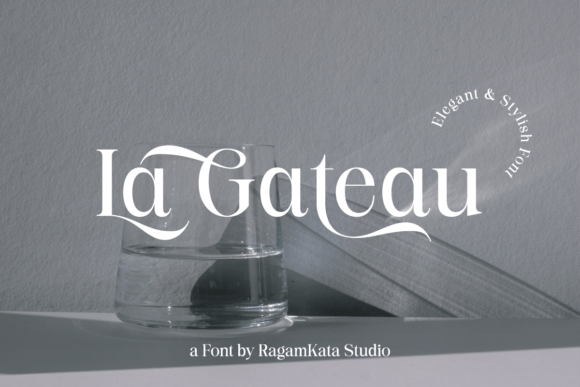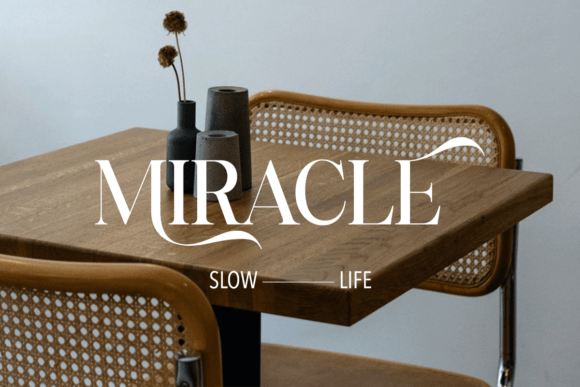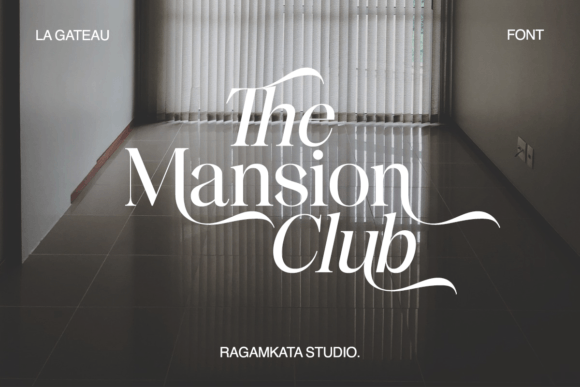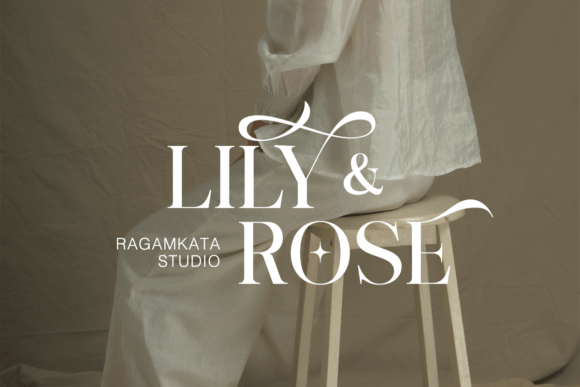
La Gateau Font: Elegant Serif for Luxury Logo & Wedding Design
About the La Gateau Font
Experience the unique personality of La Gateau Font, a font designed for impact. La gateau, a classic, elegant yet stylish serif font that will make your project even more stunning. A graceful typeface, with a perfect shape and ligatures will make your design look majestic.
This typeface is a perfect for a luxury logo, classy editorial designs, fashion brand and promotion, and much more. Spread your aural with La geteau.
La Gateau’s elegant serifs are ideally suited for headlines, logos, and short-form text in branding materials and high-end packaging. Its refined aesthetic also works well in fashion and beauty contexts, adding a touch of sophistication to invitations or promotional materials. However, its ornate details make it less suitable for body text or UI elements where readability over long passages is paramount.
Consider pairing La Gateau with a clean sans-serif like Montserrat for a modern contrast, or a geometric sans-serif such as Futura for a more minimalist approach. For a touch of playful contrast, a script font with a similar level of refinement could be effective.
The overall personality of La Gateau is sophisticated and refined, conveying a sense of luxury and timeless elegance. It is best suited for brands and projects that aim to project an image of high quality and exclusivity.
La Gateau Font Usage Examples
La Gateau Font Example